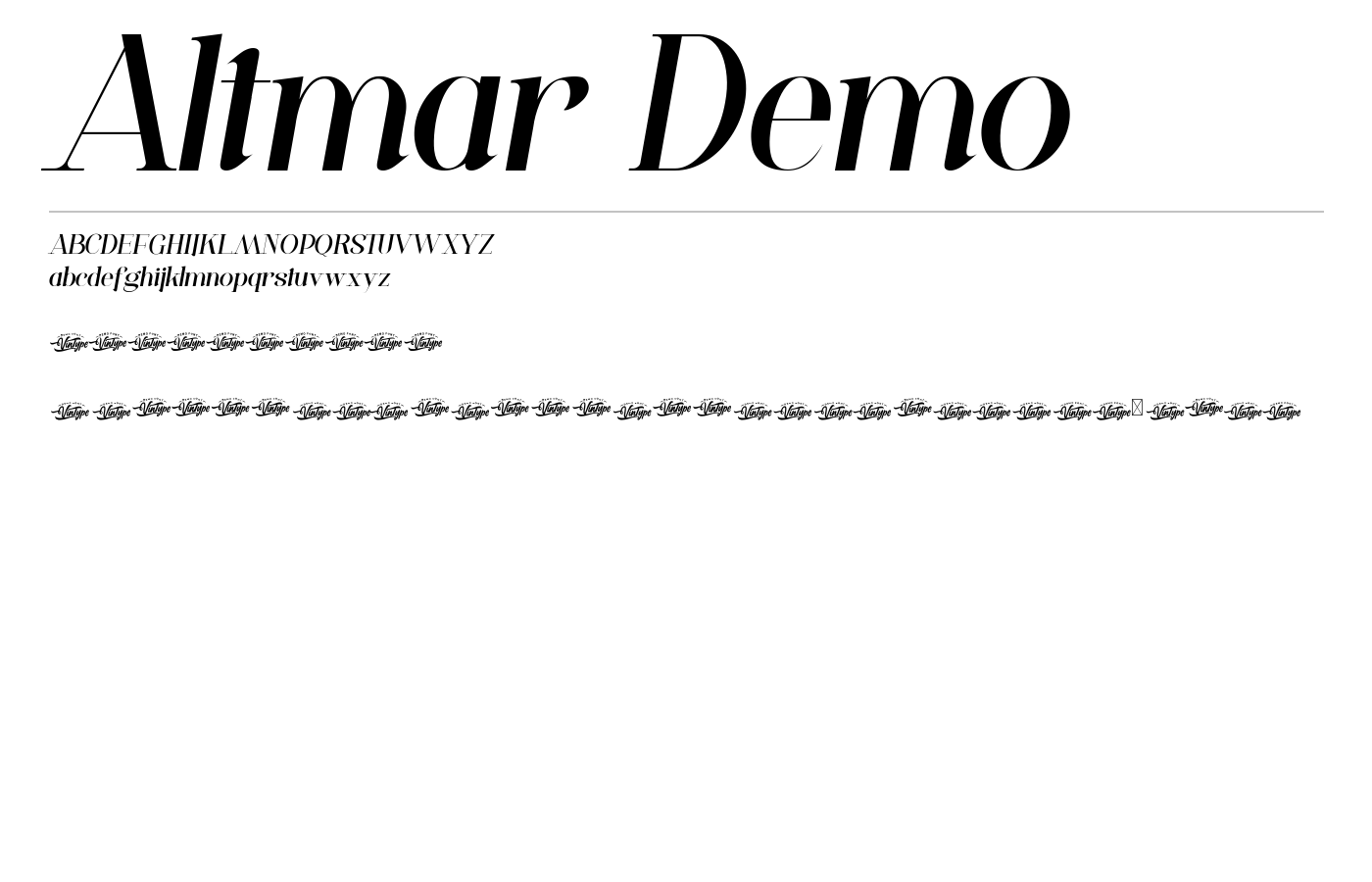
Altmar Demo is an elegant serif font characterized by its high contrast between thick and thin strokes, slender proportions, and refined, calligraphic details. With its graceful, italicized style and delicate serifs, it exudes a sophisticated, timeless charm, making it perfect for upscale branding, editorial layouts, and luxury fashion use where elegance and readability are essential.
Altmar Demo Font
About Altmar Demo Font
| Font family | Altmar Demo Font |
| Designer | Widiyanti |